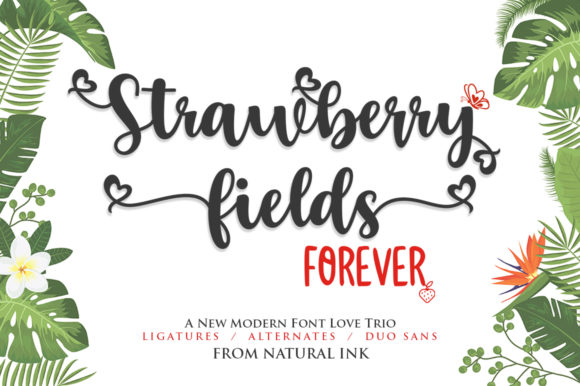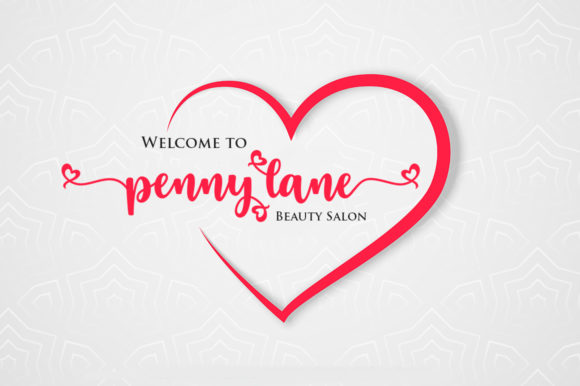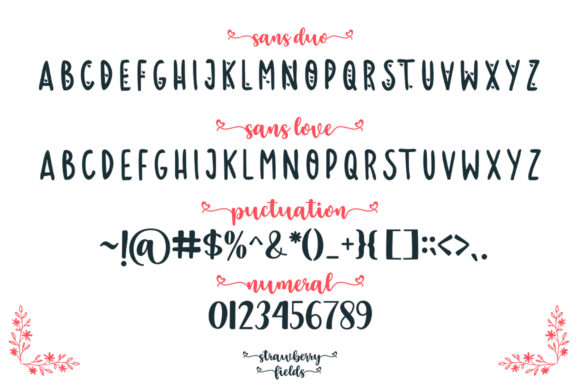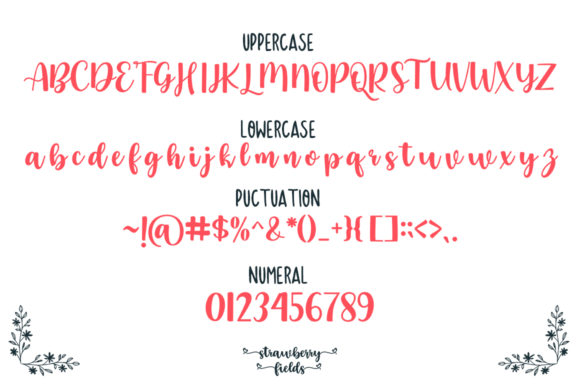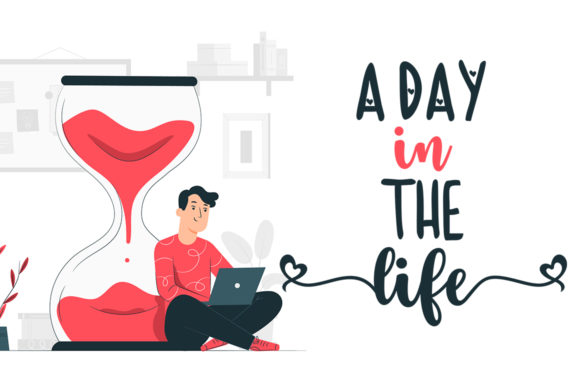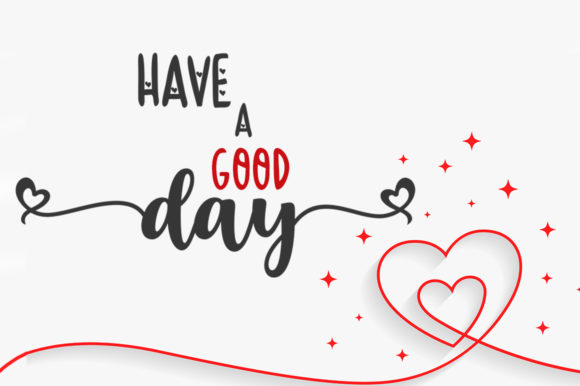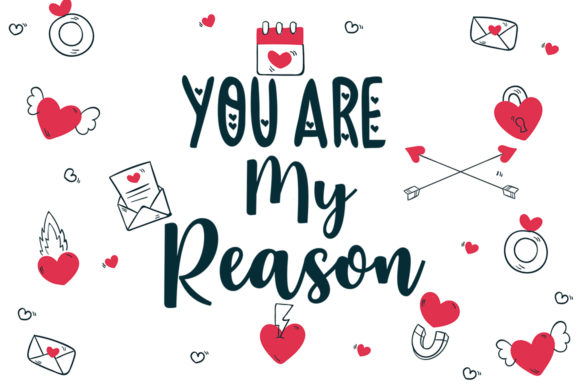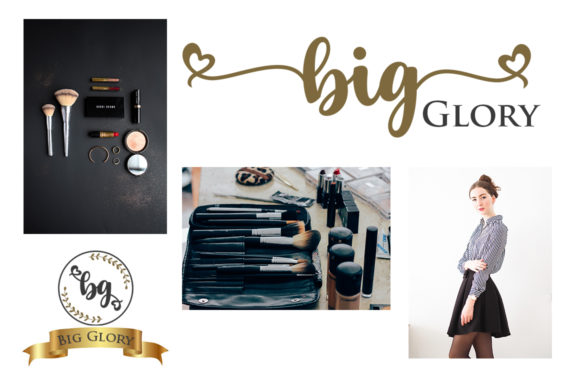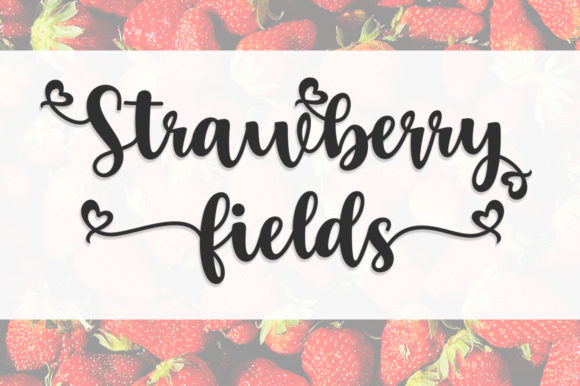
Strawberry Fields Forever Font
Strawberry Fields Forever is a delightful trio font that brings a touch of whimsy and charm to your designs. This font offers three variations of the handwritten style, providing versatility and flexibility for various design purposes.
Whether you’re working on a logo, wedding invitation, heading, t-shirt design, letterhead, signage, label, news article, poster, badge, or any other creative project, Strawberry Fields Forever has got you covered. Its playful and organic letterforms add a unique character to your typography, making your designs stand out.
The first variation of Strawberry Fields Forever features a casual and carefree handwritten style. It has a relaxed and natural feel, perfect for creating a friendly and approachable atmosphere in your designs. This style works well for social media graphics, personal branding, and informal projects.
The second variation of Strawberry Fields Forever has a more refined and elegant look. It retains the handwritten charm but with a touch of sophistication. This style is ideal for wedding invitations, branding materials, and projects that require a more formal and polished appearance.
The third variation of Strawberry Fields Forever offers a decorative script style with swashes and ornaments. This style adds a touch of flourish and flair to your designs, allowing you to create intricate and eye-catching typography. It’s perfect for headlines, titles, and designs that require an extra level of visual interest.
Strawberry Fields Forever is designed to be versatile and suitable for a wide range of design applications. Its PUA encoding ensures easy access to all the glyphs, swashes, and ornaments, allowing you to customize and personalize your designs effortlessly.
With Strawberry Fields Forever, you have a trio of fonts that can elevate your designs and bring a sense of playfulness, elegance, or decorative charm. Let your creativity run wild and explore the various possibilities that this font offers. Embrace the joy and creativity of Strawberry Fields Forever and watch as your designs come to life with a touch of whimsy and style.
In summary, Strawberry Fields Forever is a lovely trio font that offers different variations of the handwritten style. It is suitable for various design purposes, from logos to wedding invitations, and provides flexibility and versatility. With its playful, refined, and decorative styles, this font allows you to create designs that are unique and captivating. Enjoy the beauty of Strawberry Fields Forever and let it inspire your creative journey.